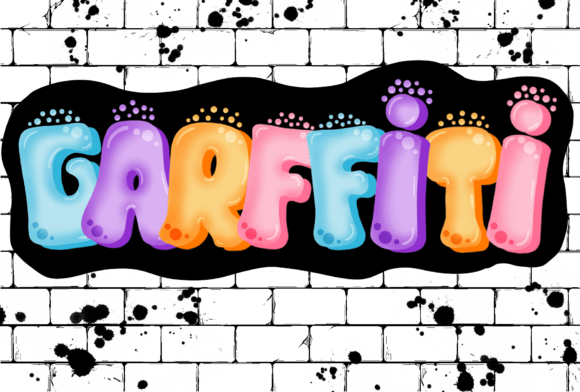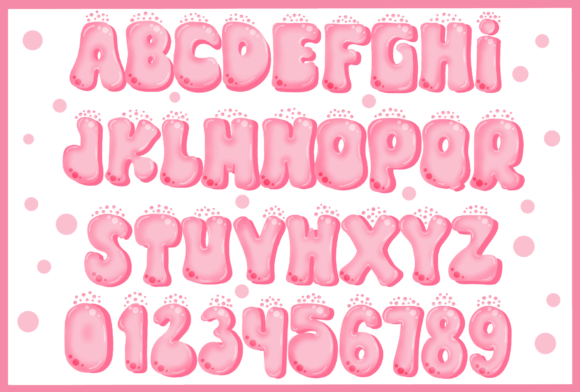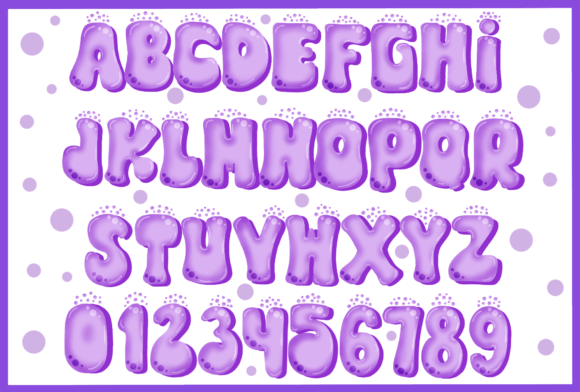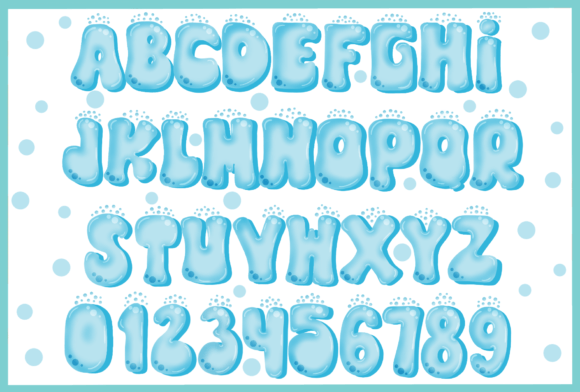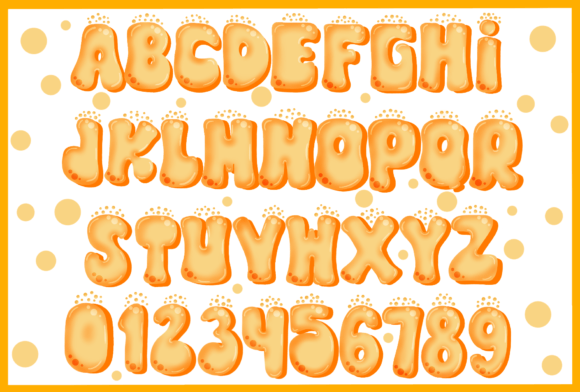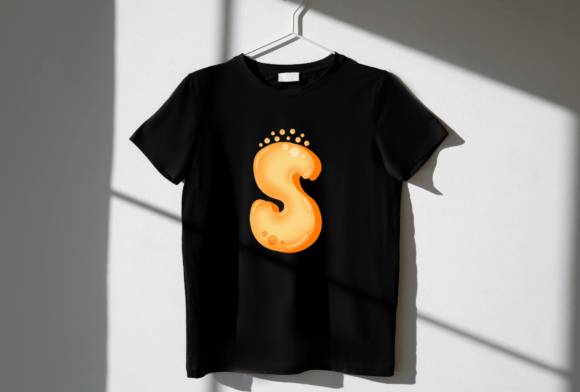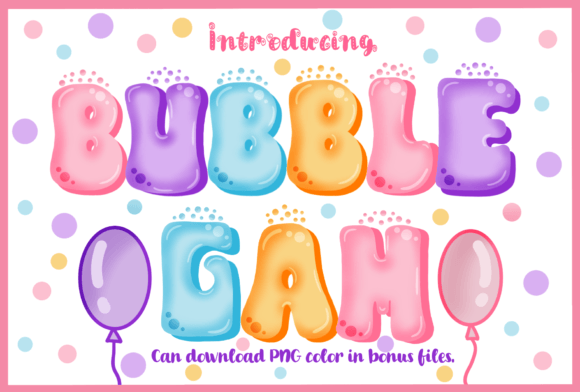
Bubble Gam Font: Add a Playful Touch to Your Designs
Are you looking for a font that can add a dash of fun and whimsy to your projects? Look no further than Bubble Gam Font! This delightful font is designed to bring a cheerful and lighthearted vibe to any design, making it perfect for crafters, designers, and anyone looking to add a touch of personality to their work.
What is Bubble Gam Font?
Bubble Gam Font is a unique and playful font that features cute little bubbles on top of each letter. The font’s design is inspired by the classic bubble gum that we all loved as kids, with its bright colors and fun texture. The bubbles on top of each letter add a touch of whimsy and playfulness, making it perfect for designs that require a lighthearted and cheerful feel.
Key Features of Bubble Gam Font
- Playful and Whimsical Design: Each letter features cute little bubbles on top, giving it a cheerful and lighthearted vibe.
- Perfect for Kids and Adults Alike: The font’s playful design makes it suitable for designs targeting both kids and adults.
- Easy to Read: Despite its playful design, Bubble Gam Font is easy to read and understand, making it perfect for use in a variety of designs.
- Highly Versatile: The font can be used in a wide range of designs, from party invitations and children’s books to branding and advertising.
How to Use Bubble Gam Font
Bubble Gam Font is easy to use and can be incorporated into a variety of designs. Here are a few ideas to get you started:
- Party Invitations: Use Bubble Gam Font to create fun and playful party invitations that are sure to delight kids and adults alike.
- Children’s Books: The font’s playful design makes it perfect for use in children’s books, adding a touch of whimsy and fun to your story.
- Branding and Advertising: Use Bubble Gam Font to add a touch of personality to your brand or advertising campaign, making it more approachable and fun.
- DIY Projects: The font is also perfect for use in DIY projects, such as crafting and scrapbooking.
Benefits of Using Bubble Gam Font
There are many benefits to using Bubble Gam Font in your designs. Here are a few:
- Adds a Touch of Whimsy: The font’s playful design adds a touch of whimsy and fun to any design.
- Increases Engagement: The font’s playful design is sure to engage your audience and make your design more memorable.
- Perfect for Kids and Adults Alike: The font’s design makes it suitable for use in designs targeting both kids and adults.
- Easily Customizable: The font is easily customizable, allowing you to adjust the size, color, and style to suit your design needs.
Tips and Tricks for Using Bubble Gam Font
Here are a few tips and tricks for using Bubble Gam Font:
- Use it Sparingly: While Bubble Gam Font is playful and fun, it’s best to use it sparingly to avoid overwhelming your design.
- Pair it with Other Fonts: The font pairs well with other fonts, so feel free to experiment with different combinations to find the perfect look for your design.
- Adjust the Size and Color: Adjust the size and color of the font to suit your design needs and make it more impactful.
Bubble Gam Font is a fun and playful font that adds a touch of whimsy and personality to any design. With its cute little bubbles on top of each letter, it’s perfect for designs that require a lighthearted and cheerful feel. Whether you’re a designer, crafter, or simply someone looking to add a touch of fun to your project, Bubble Gam Font is sure to bring smiles to faces.